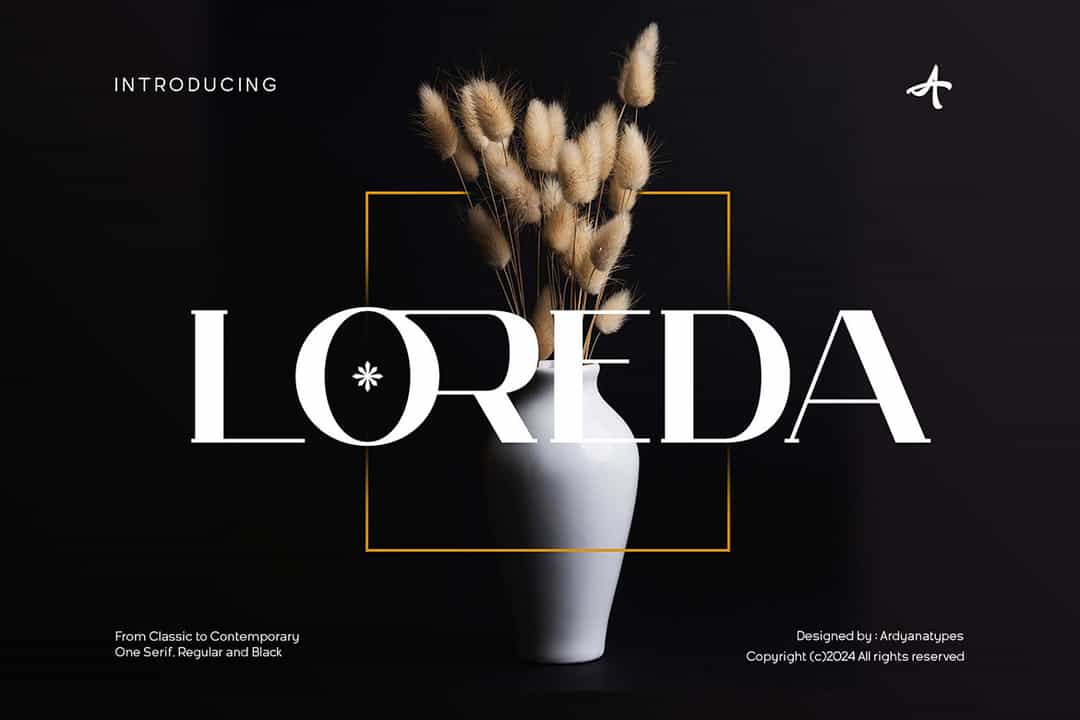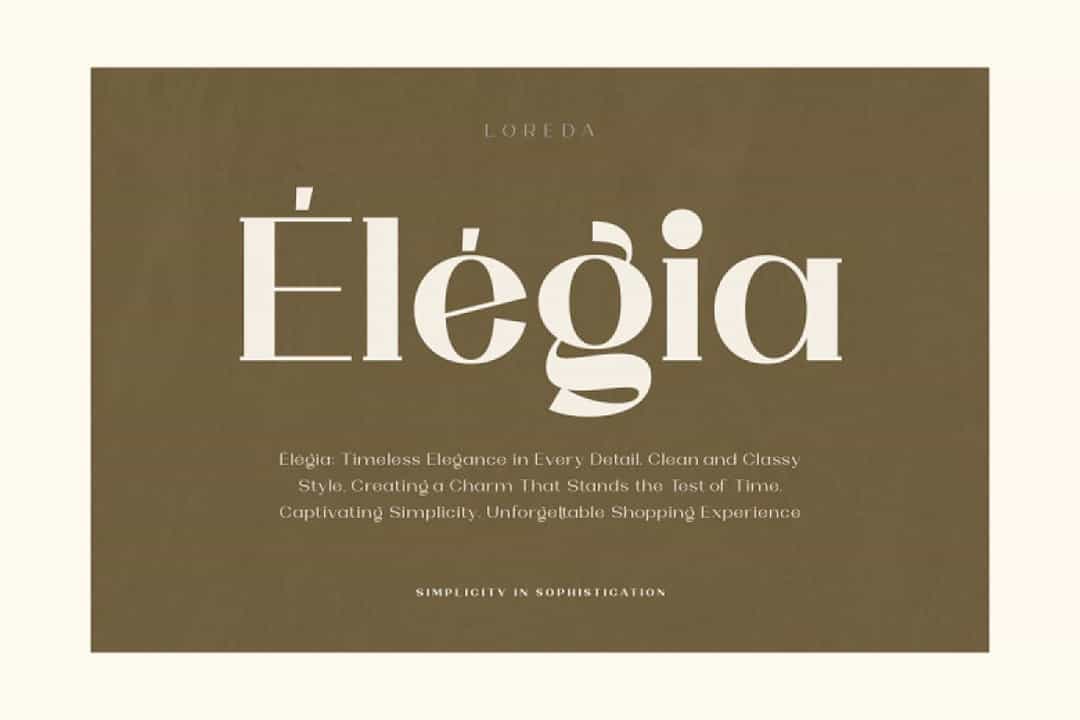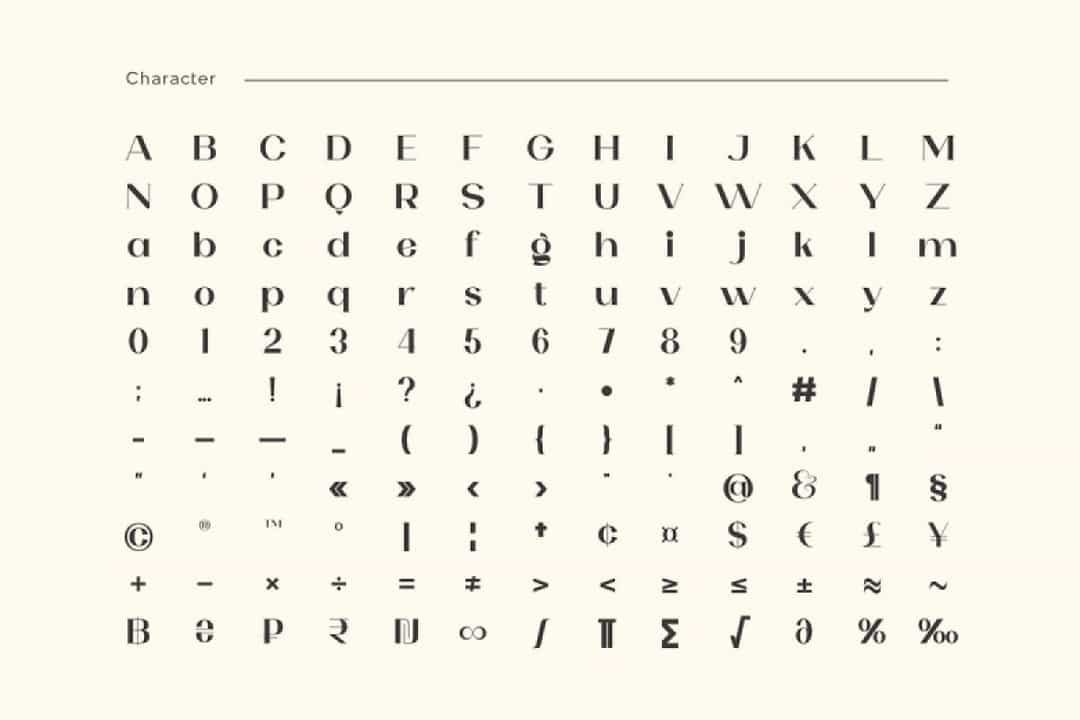
Loreda is a new and modern serif font from Ardyanatypes that speaks sophistication and class. Loreda is a font that has the modern professional character for use by business organizations to enhance their corporate image through items like business cards, name tags and uniforms for example.